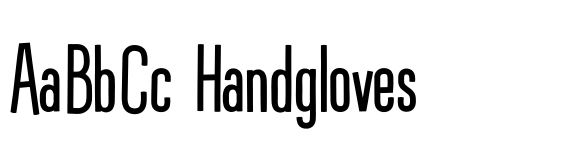
Lets Jazz
von Unio Creative Solutions
Die Schriftfamilie Lets Jazz wurde von Nicola Manzari, Bruno Pierini entworfen und von Unio Creative Solutions veröffentlicht. Lets Jazz enthält 2 Stile und Familienpaketoptionen.
Introducing “Let’s Jazz” - a playful typeface which is inspired by iconic mid-century American advertising and lettering. With this project we wanted to homage the dazzling graphics of those booming years and the result is a jazzy typeface that provides a condensed aspect with a bouncy rhythm. As previously said, Let’s Jazz gives the spontaneous vibe of this sensational music genre but it has been also designed with a strong focus to the very distinct look of Saul Bass graphics, which are honestly still fresh and convincing, even nowadays. Let’s Jazz offers two versions, Regular and Stamp. Each version contains more than 450 glyphs and covers several languages based on the Latin alphabet; the jazzy experience is enhanced with OpenType (OTF) support for small caps and includes some neat ligatures and alternates plus the oldstyle bouncy numerals*. This package is a powerful tool in a wide variety of design purposes: headlines, packaging, logotypes, badges, posters and much more. *Let’s Jazz has built-in OpenType features enabled for Adobe® Creative Suite® and any other opentype capable software. All the extra characters has been additionally coded with “PUA Unicode”, which basically means that this font duo is totally accessible without any additional design software. All the extra characters can now be copied straight out the FontBook (Mac) or CharacterMap (Win) and pasted into your favorite text editor. Official mini-tutorials available here: - How to access alternates, ligatures and swashes in Font Book®: https://youtu.be/mGKlvKr0ReI - How to use alternates, ligatures and swashes in Photoshop®: https://youtu.be/46ZtDbHwUAc Specifications: - Multi-language Support (Central, Eastern, Western European languages) - OpenType features (Standard and Discretionary Ligatures, Alternates, Small Caps, OldStyle Numerals) - PUA Coded Extra Characters Thanks for viewing, Unio.
Designer: Nicola Manzari, Bruno Pierini
Herausgeber: Unio Creative Solutions
Foundry: Unio Creative Solutions
Eigentümer des Designs: Unio Creative Solutions